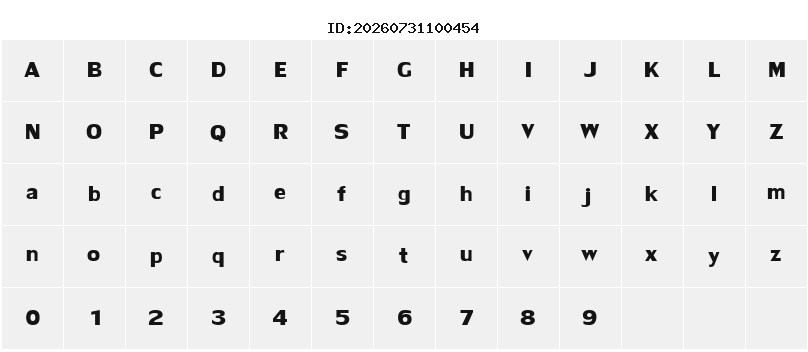
About LilyUPC.ttf
LilyUPC.ttf is a modern, elegant sans-serif font designed for ultimate readability and visual harmony. Perfect for branding, headlines, web design, and print materials.